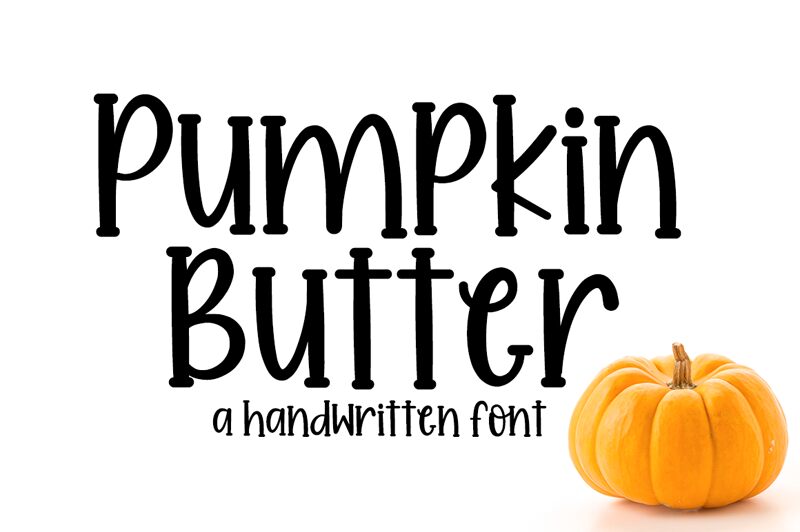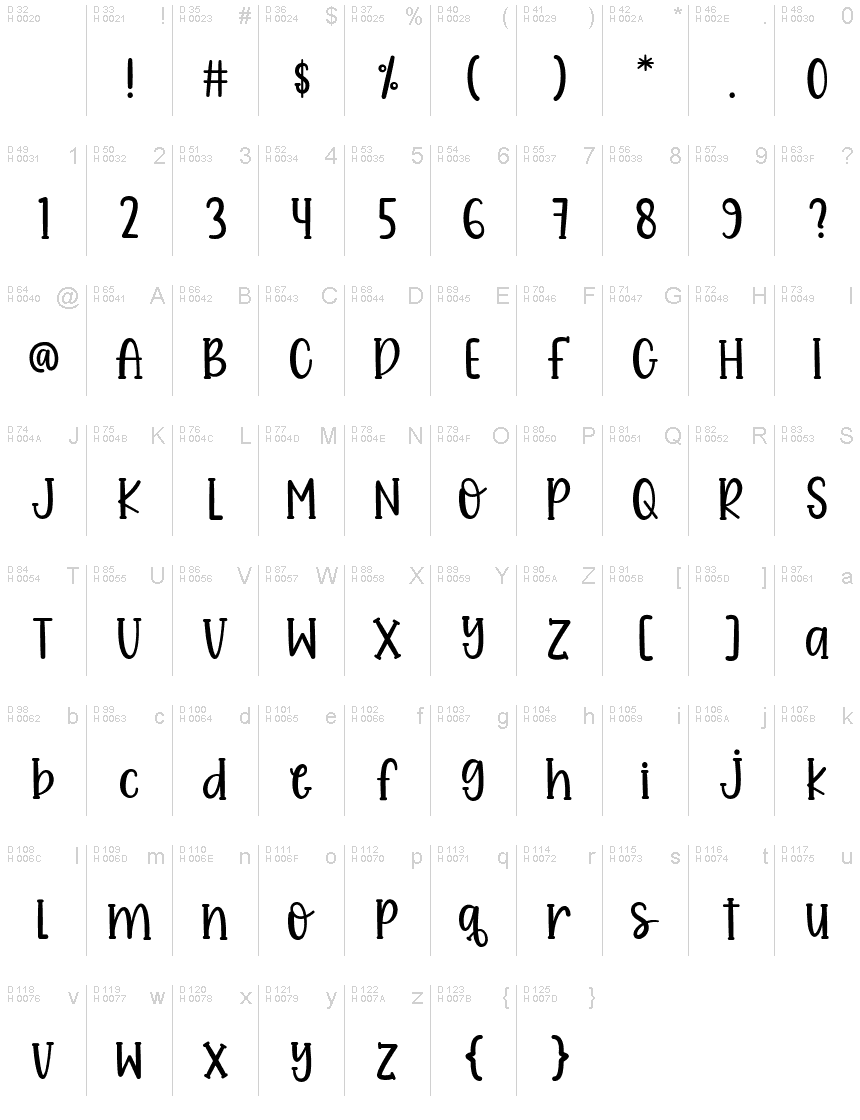
Pumpkin Butter
Pumpkin Butter, a delightful creation by AM Designs, is a captivating display font that brings a whimsical touch to any project.
With its playful and cartoonish style, this semi-condensed typeface is perfect for children's book covers, greeting cards, and party invitations. Its script-like appearance adds a sense of warmth and friendliness, making it an excellent choice for branding materials related to cozy cafes or artisanal products.
Let Pumpkin Butter sprinkle joy into your designs and infuse them with a dash of enchantment!